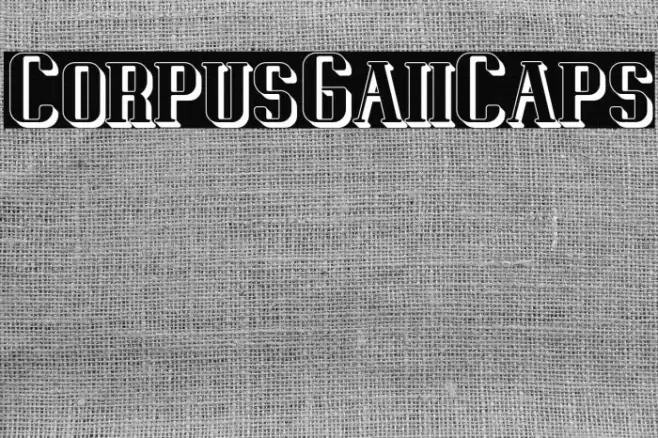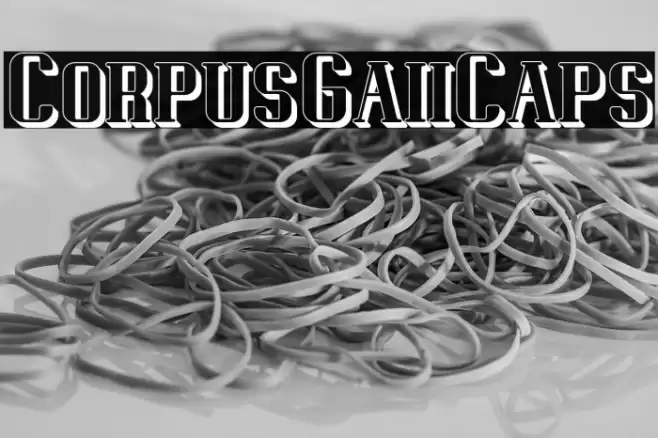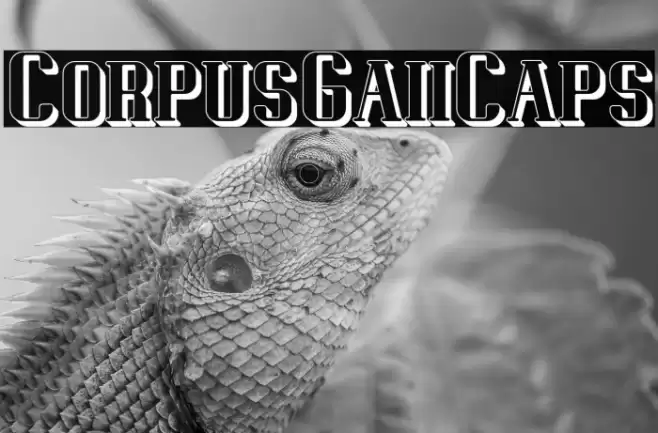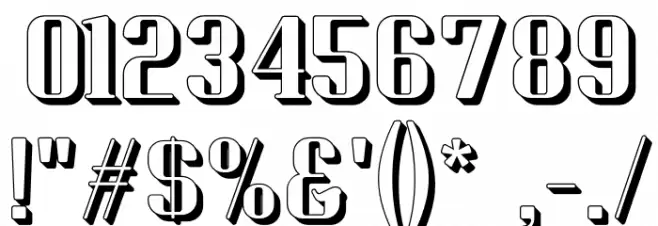
CorpusGaiiCaps Font
CorpusGaiiCaps Description
This font features a bold, decorative style with a three-dimensional effect, created by shadowed outlines that give each character a distinct, embossed appearance. The uppercase letters are prominent and commanding, with sharp angles and clean lines that convey a sense of strength and stability. The numerals and special characters maintain this bold aesthetic, ensuring consistency across all elements. The font's design is reminiscent of vintage signage or classic poster typography, making it ideal for projects that require a touch of nostalgia or a bold statement. Its unique style is both eye-catching and memorable, suitable for a variety of creative applications.
A bold, decorative font with a three-dimensional, vintage-inspired design from Regular fonts.
- Proposed Projects: Ideal for vintage-themed posters, signage, branding, and any project requiring a bold, eye-catching typeface.
- Overall Style: Vintage, Decorative